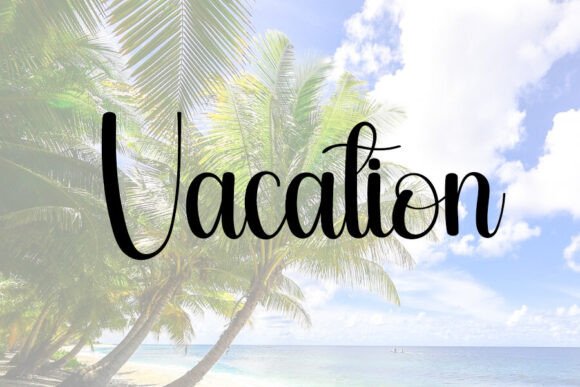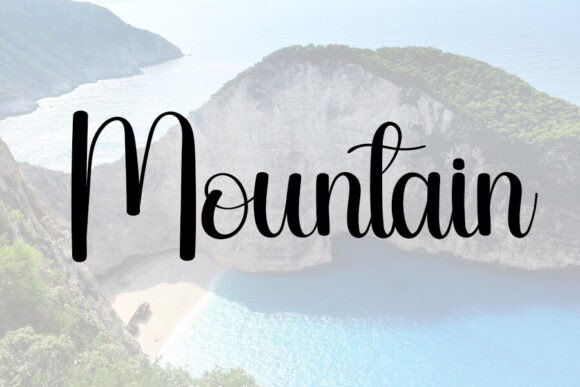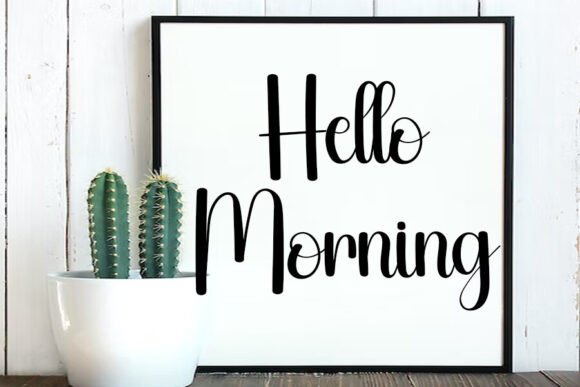
Introduction to Dahlia Font
Unveiling Dahlia, a captivatingly designed font, mastering the art of revolutionizing your designs and casting a bewitching spell on your audience.
This adaptable typeface radiates an essence of invigorating aesthetics, rendering it as an ideal selection for a multitude of design applications Be it for artfully designed YouTube banners, extraordinarily unique logo mockups catering to eminent clientele, tastefully curated wedding invitations, or inimitable ID cards, Dahlia exists as your perfect creative accomplice.
Dahlia Font offers exceptional quality and versatility, making it a valuable addition to your design toolkit. Whether you’re creating for personal projects or commercial use, Dahlia Font delivers professional results.